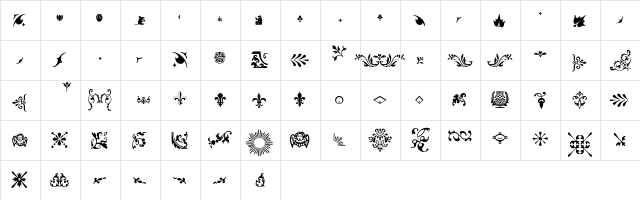
fts3 Regular
Design Context for fts3 Typeface
fts3 is a composed and adaptable typeface that performs quietly and consistently across a wide range of design contexts.